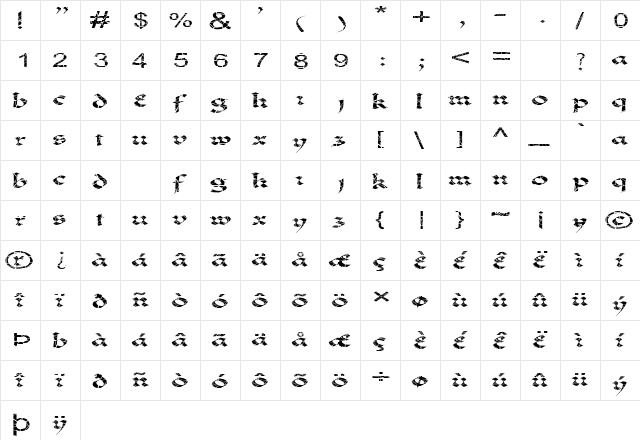
FZ JAZZY 33 CRACKED EX Normal
FZ JAZZY 33 CRACKED EX is a composed and adaptable typeface that performs quietly and consistently across a wide range of design contexts.